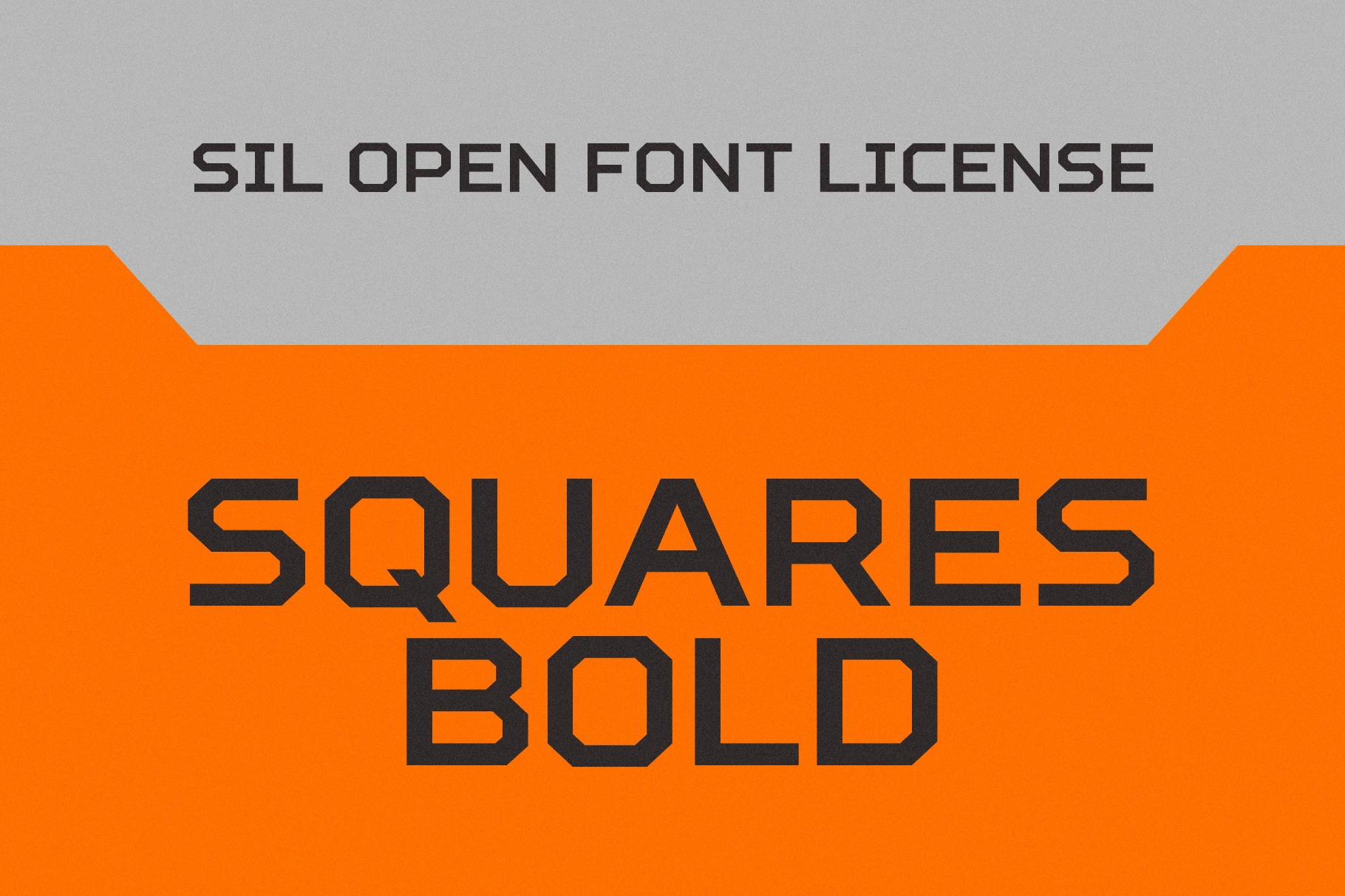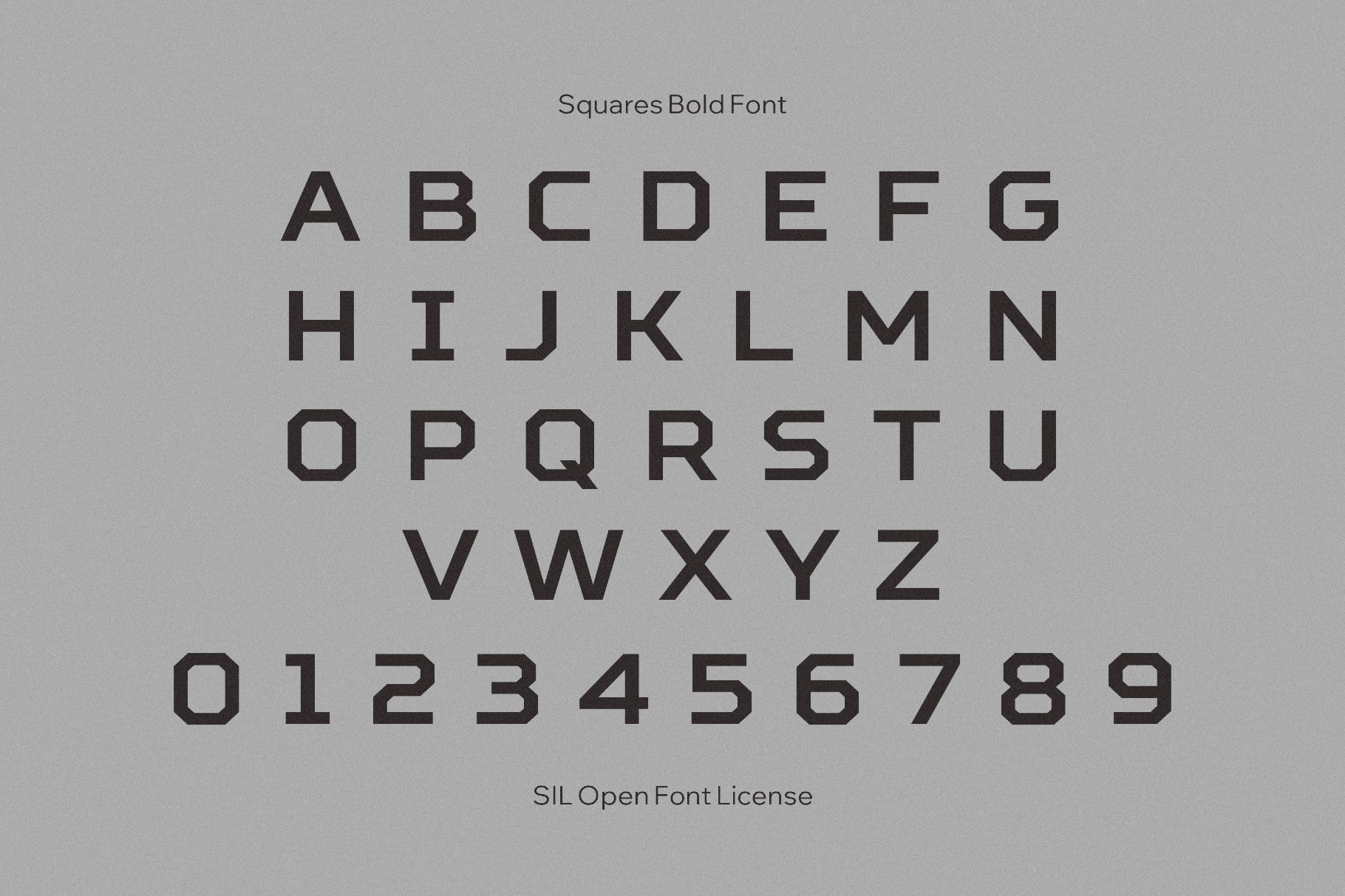
Squares Bold Font
The letters of Squares Bold sit wide and squared with clipped corners and even counters. This rigid, modular font recalls early computer mosaics, pixel signage, and 80s digital graphics. It works well for poster headlines, tech branding, game titles, editorial covers, logo systems, interface menus, sports and e-sports labels, UI accents, and packaging graphics.
- Uppercase letters.
- Numbers, punctuation, and basic symbols.
- Multilingual coverage across Latin and Cyrillic scripts.